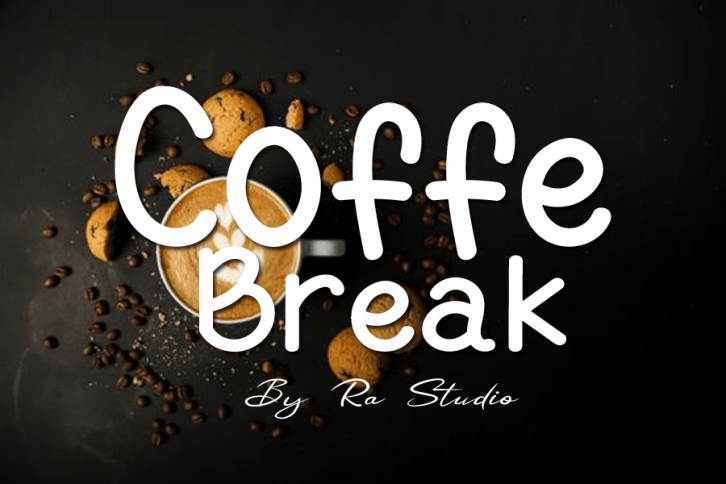
Coffe Break is a sweet and cursive handwritten font. This gentle font will look gorgeous on a variety of design ideas. It will add a joyful and romantic touch to each of your projects!